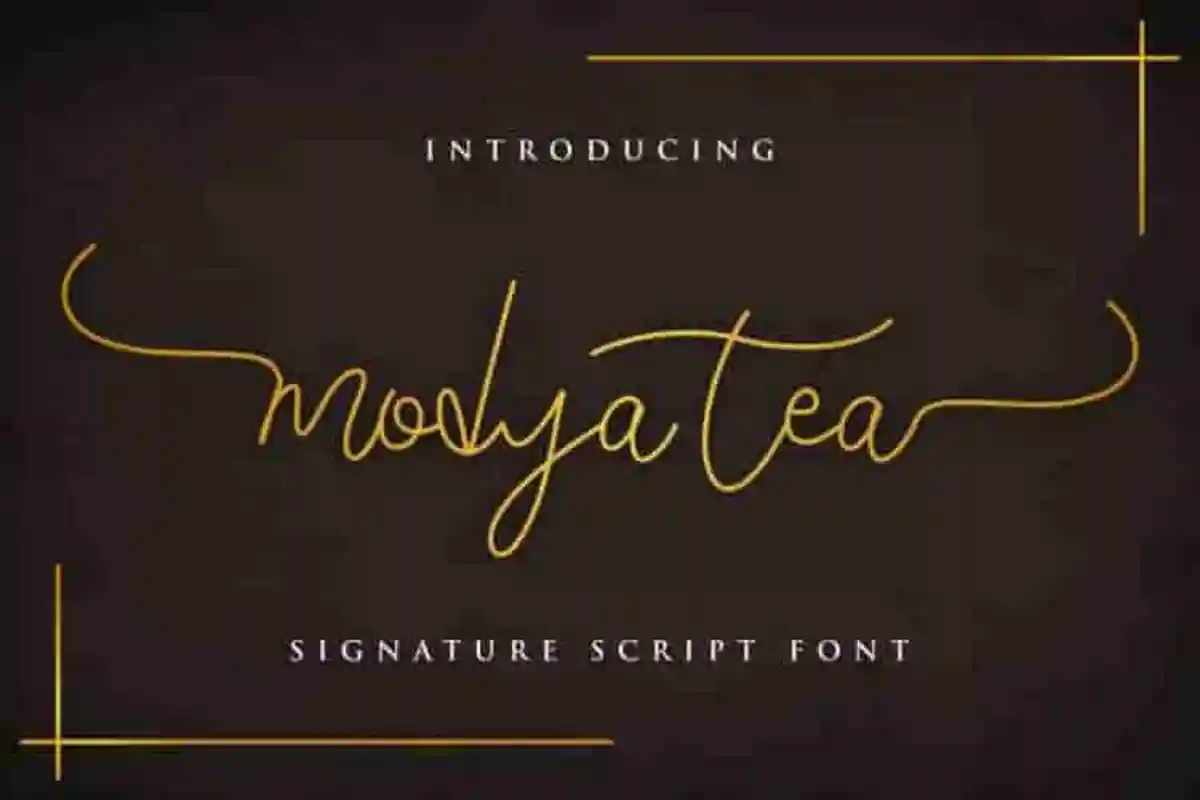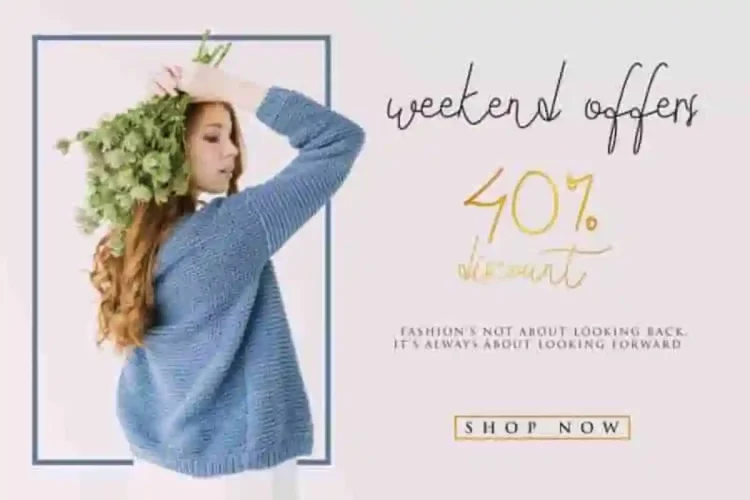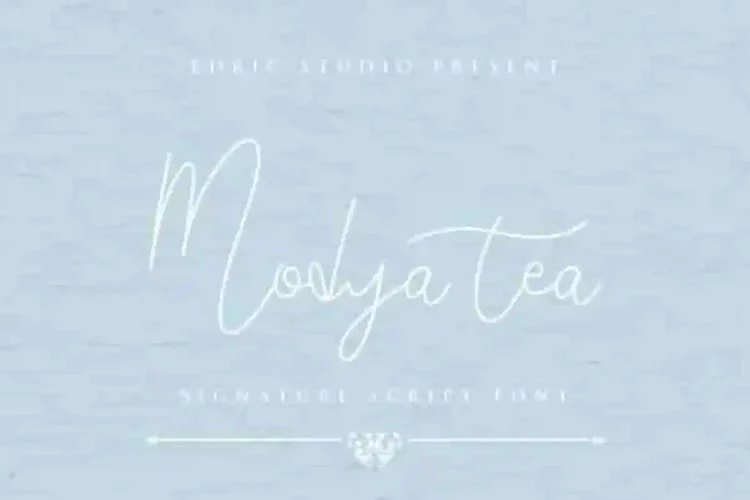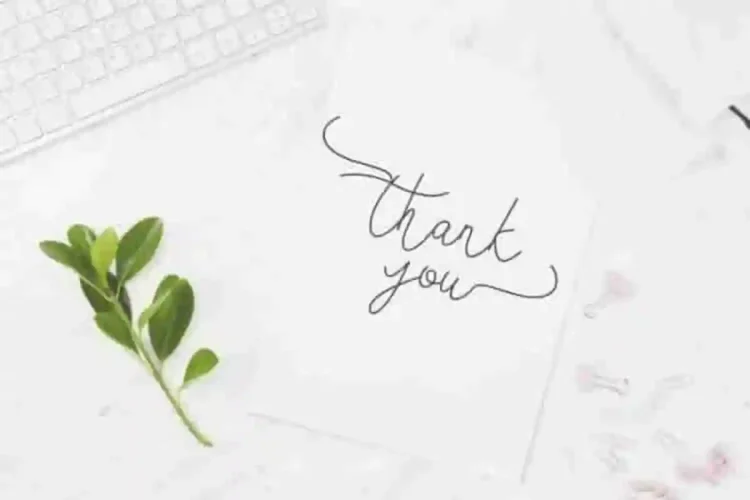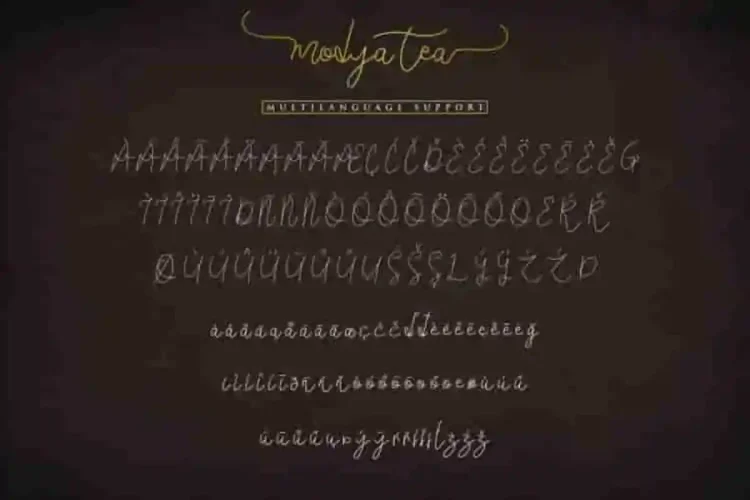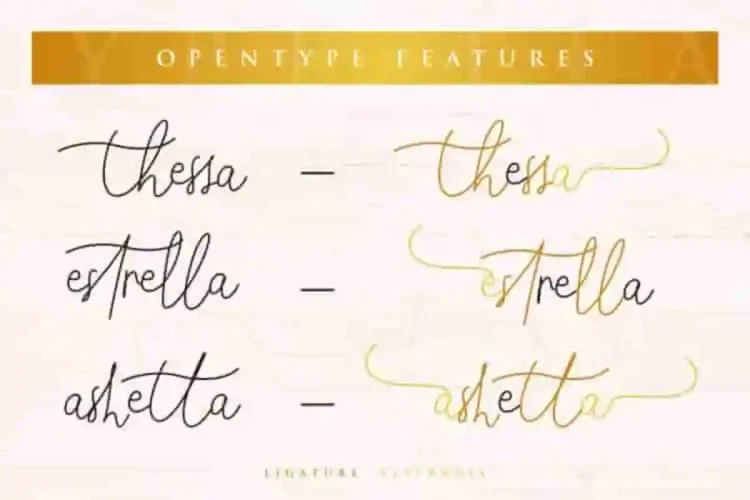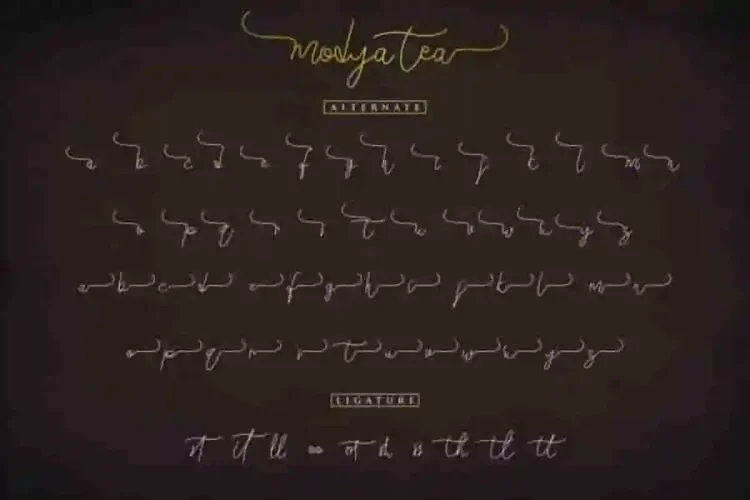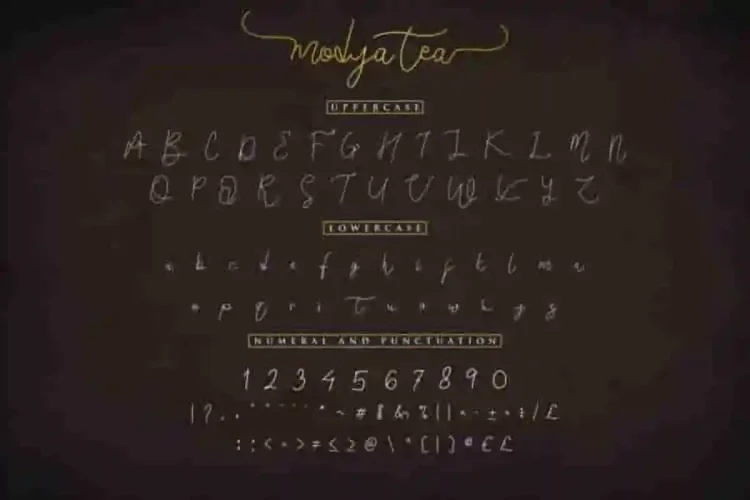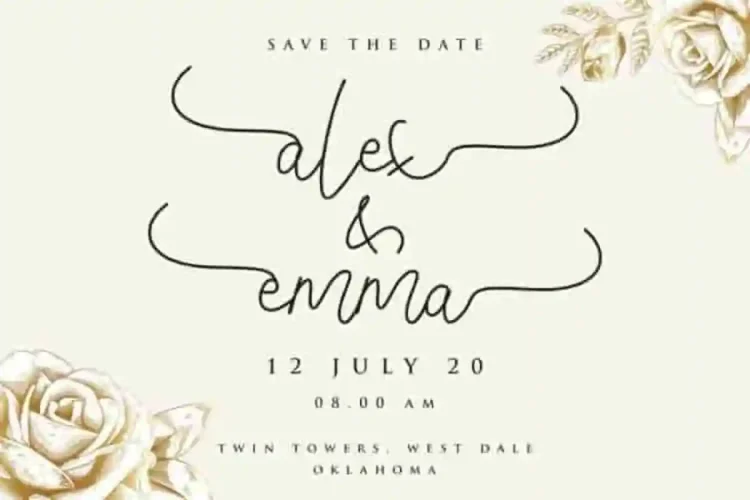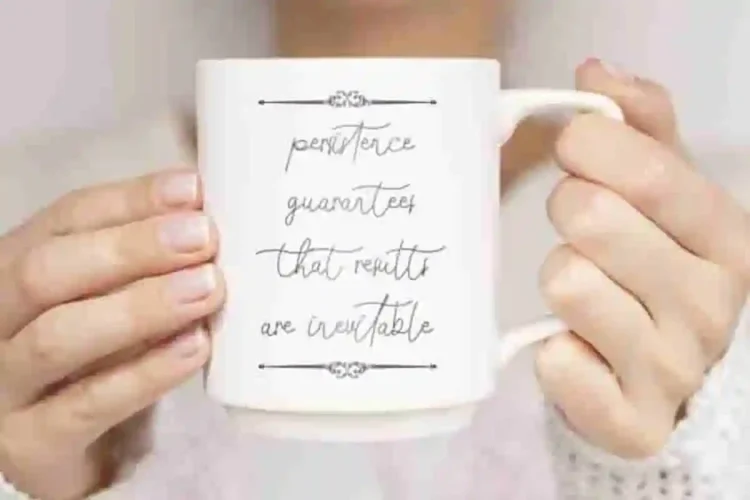
Modya Tea Signature Script Font
The newest font from our studio : Modya Tea Signature Script Font
This is a font duo, handcrafted from our Studio here in, Indonesia. The artists/designers of this beautiful tyeface is Yasri and Sarah .
Modya Tea Signature Script Font is an exclusive typeface with a unique calligraphy style. This font has a stunning characters set, perfectly managed with well spaced and kerning. The theme styles of this font are elegant, signature, pen writting, handmade, manual,  vintage, stylish, sophisticated, fancy and classic.
Modya Tea Signature Script Font will be great for any projects including : branding, logo, stationery, business card, signage, flyer, brochure, movie, music etc. Almost all industries will be match for this typeface: wedding, events, real estate, architect, law firm, florist, gardening, makeup artist, travel, hotel, musician etc.